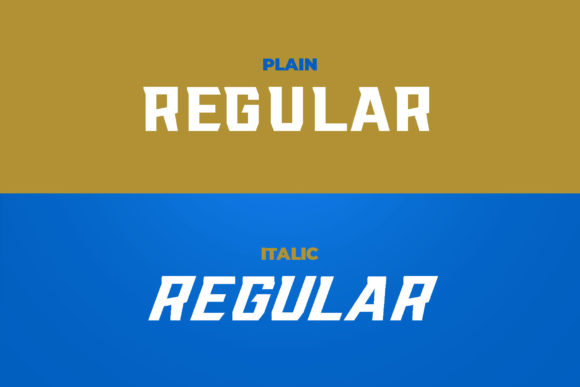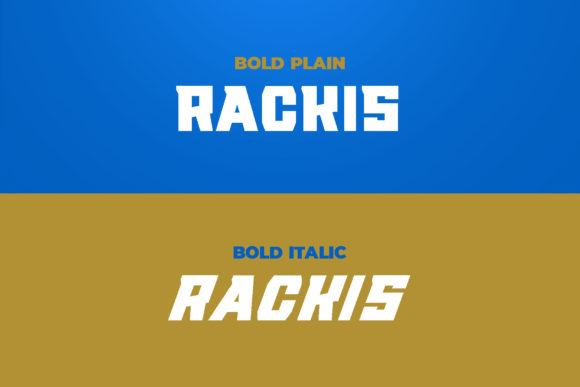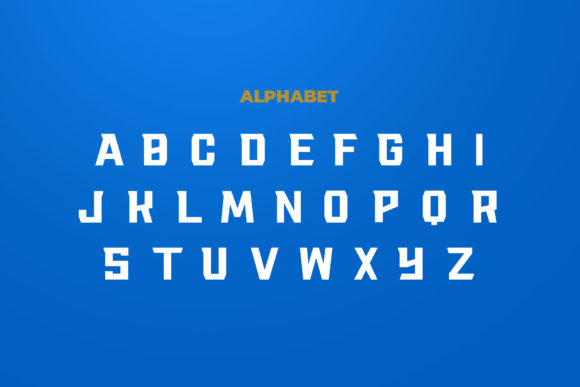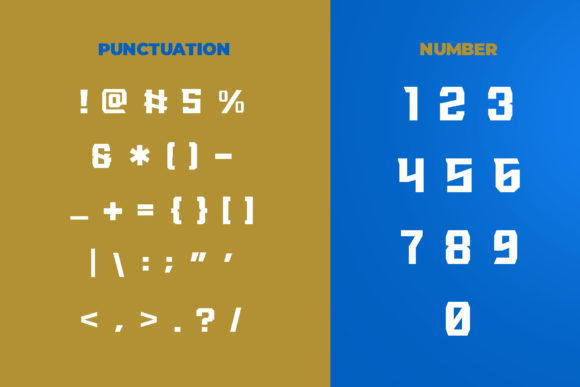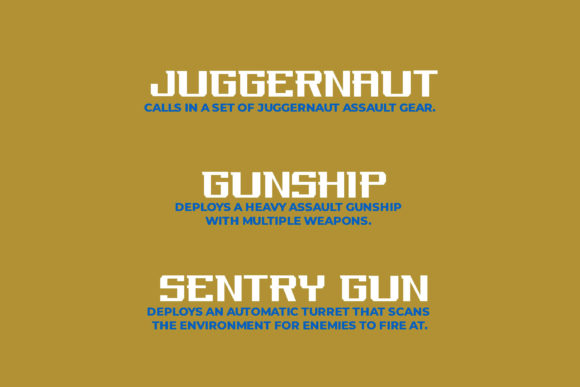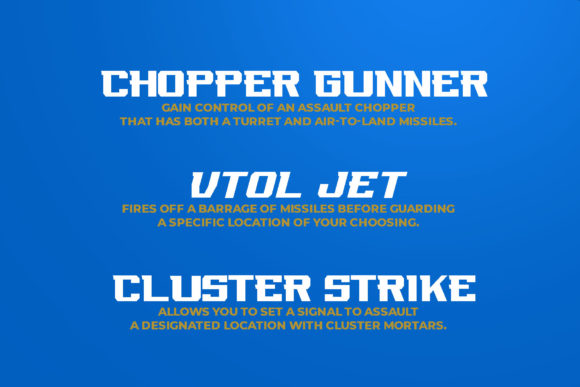
Introduction to Rackis Font
Rackis is a stunning display font that will elevate any sports or team logo.
Get inspired by its modern elegance .
Key Features of Rackis Font
Why Choose Rackis Font?
Rackis Font offers exceptional quality and versatility, making it a valuable addition to your design toolkit. Whether you’re creating for personal projects or commercial use, Rackis Font delivers professional results.